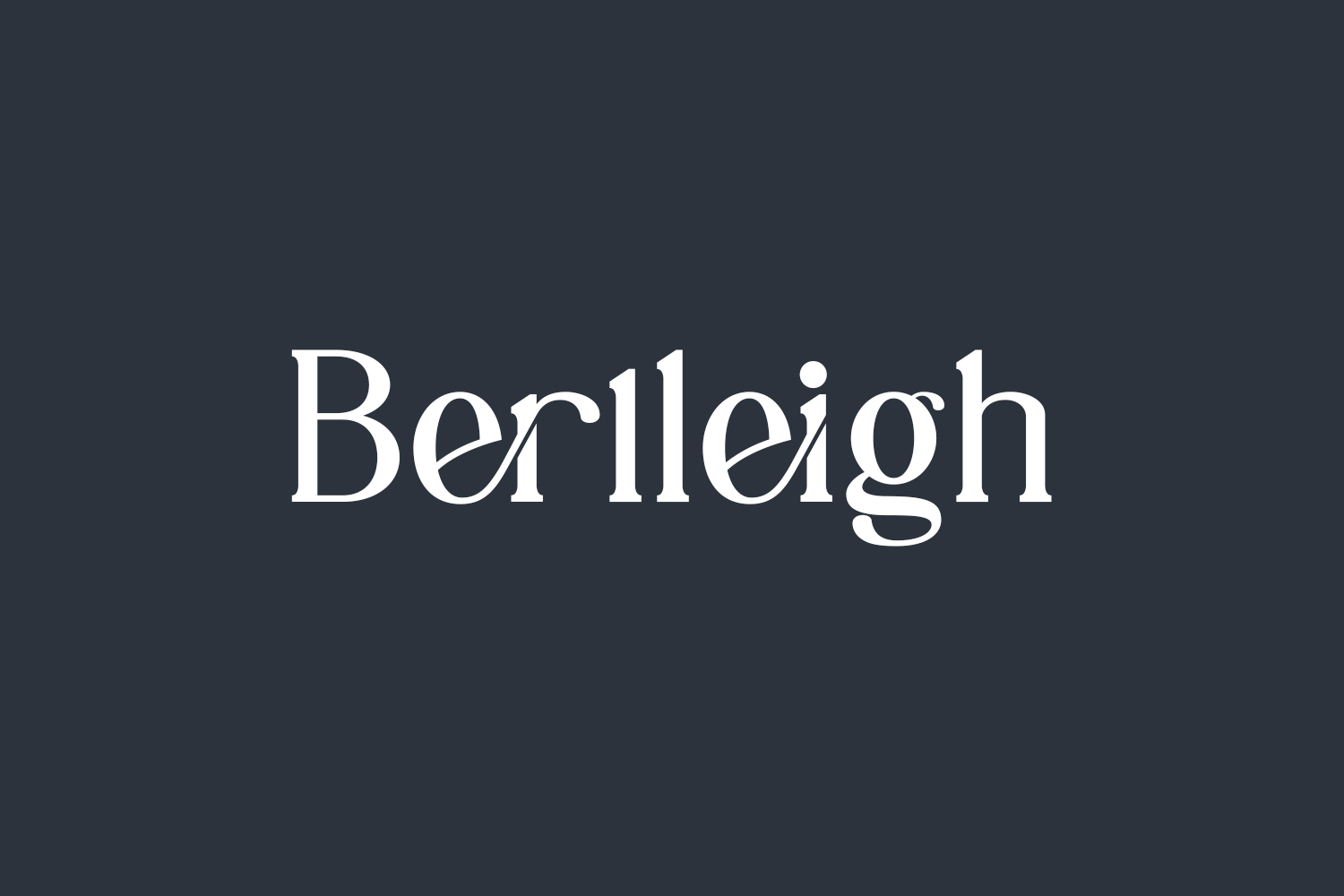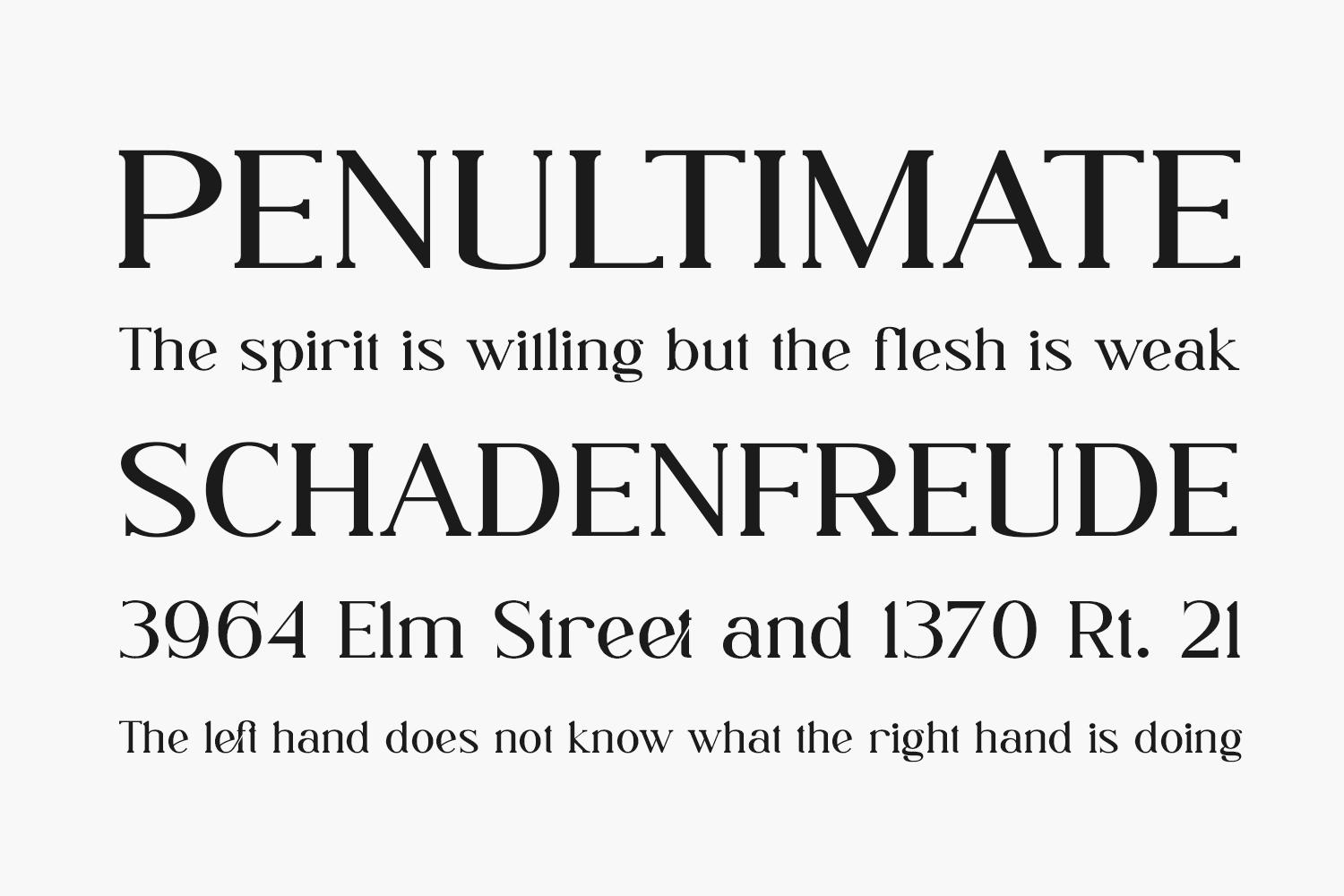
Introducing the Berlleigh Free Font Family, comprising two fonts – serif and script – meticulously crafted to harmonize seamlessly. Whether used together or separately, these fonts exude a sophisticated charm, elevating your creative projects with a chic and joyful flair. Download the font for free if you need it for personal use or purchase the full version for commercial use.